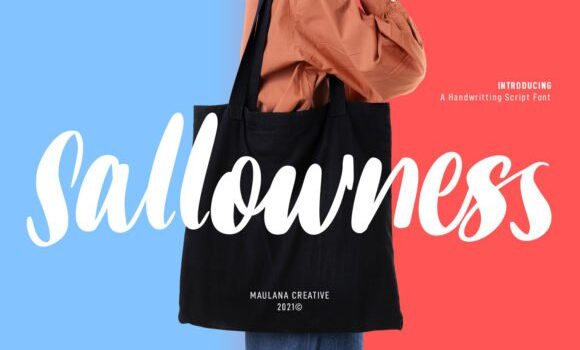
sallowness
Sallowness Font – Free Download Introduction to Sallowness Font Sallowness is a playful and trendy handwritten font. 📸 Preview Gallery 6 images 📌 Product Name Sallowness Font 👤 Author Maulana Creative 📂 Category Explore ⬇️ Download Sallowness Font FREE Free